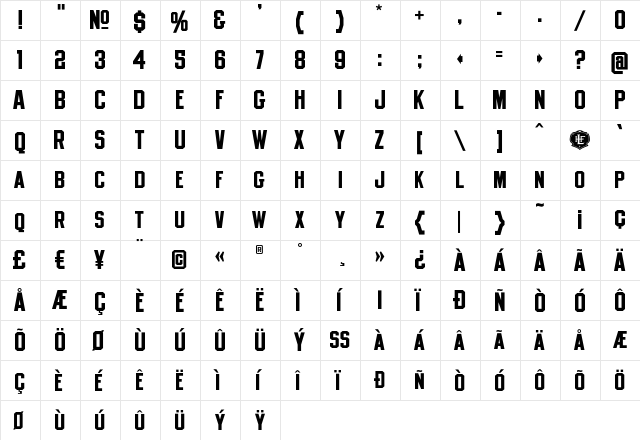
LHFOldBlockCondBold Regular Font Preview
LHFOldBlockCondBold Regular
Design Context for LHFOldBlockCondBold Typeface
LHFOldBlockCondBold offers clean, dependable letterforms without strong stylistic allegiance, making it a practical choice for designers who need flexibility. Its bold stroke weight gives it real presence on the page. Its narrow stance lets it pack a punch even in space-constrained designs.